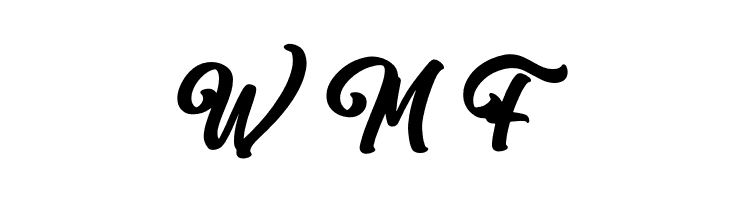
Rentrick Kentack Italic Font
A bold, italic script font with interconnected letters and smooth curves.
Rentrick Kentack Font
A bold, dynamic script font with elegant, flowing cursive strokes.